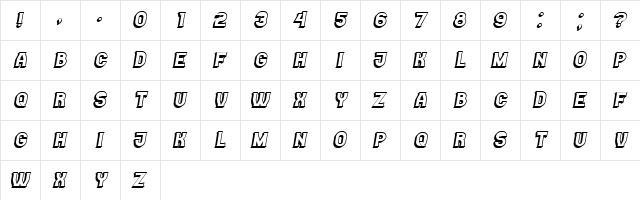
Casino 3D Italic
Design Context for Casino 3D Typeface
Casino 3D is a composed and adaptable typeface that performs quietly and consistently across a wide range of design contexts. The dynamic lean of this cut emphasises speed and emphasis in any layout.
Pro Tip: Use Casino 3D for emphasis, pull quotes, and subheadings where its slanted energy can add rhythm to the layout.